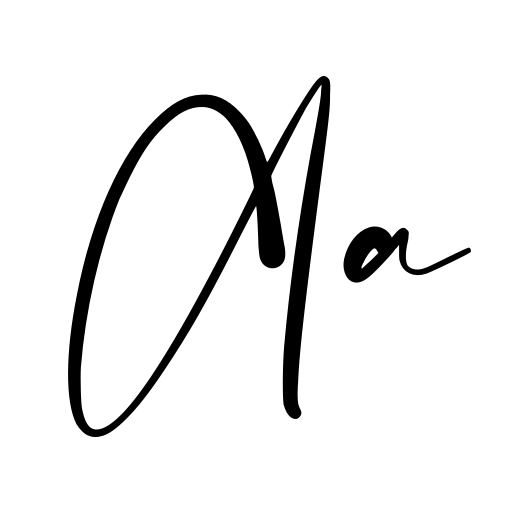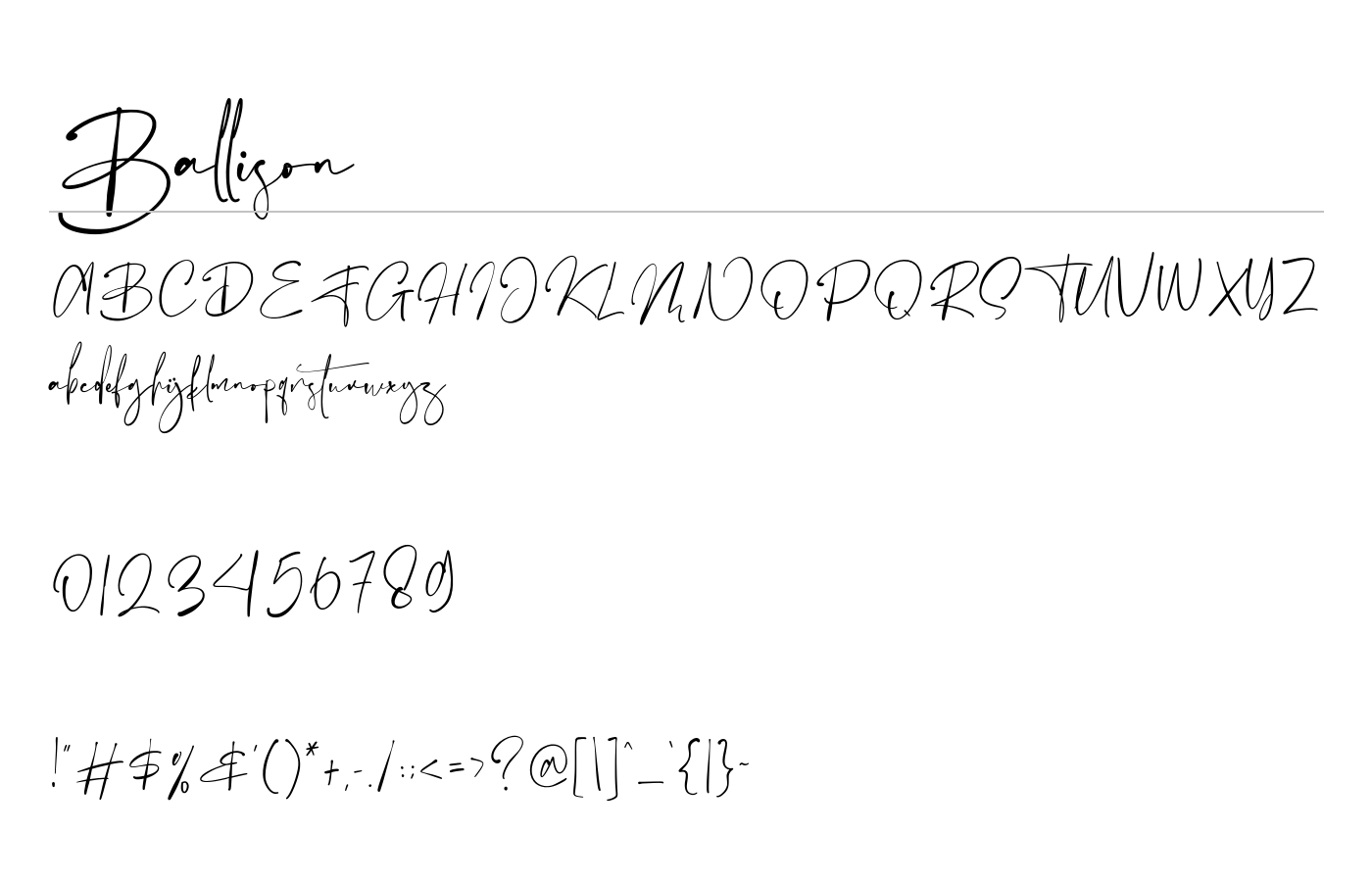
Ballison is a delicate, handwritten script font characterized by its thin, elegant strokes and natural, flowing letterforms. Its light weight and airy structure make it perfect for designs that seek a personal, stylish, and sophisticated touch, ideal for branding, invitations, and creative projects where a refined but approachable look is desired.
Ballison Font
About Ballison Font
| Designer | Vultype Co |